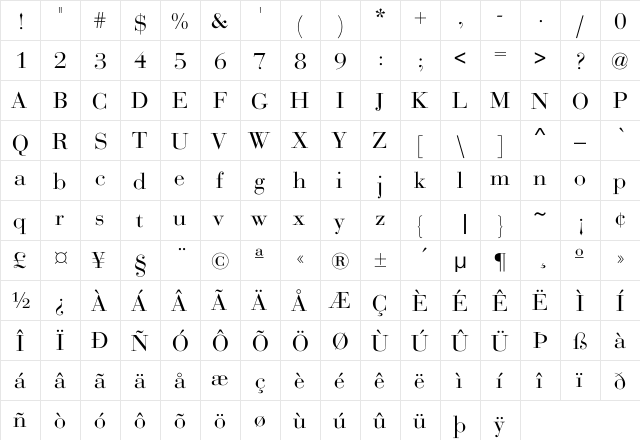
Narragansette Regular
Design Context for Narragansette Typeface
Narragansette is a composed and adaptable typeface that performs quietly and consistently across a wide range of design contexts.